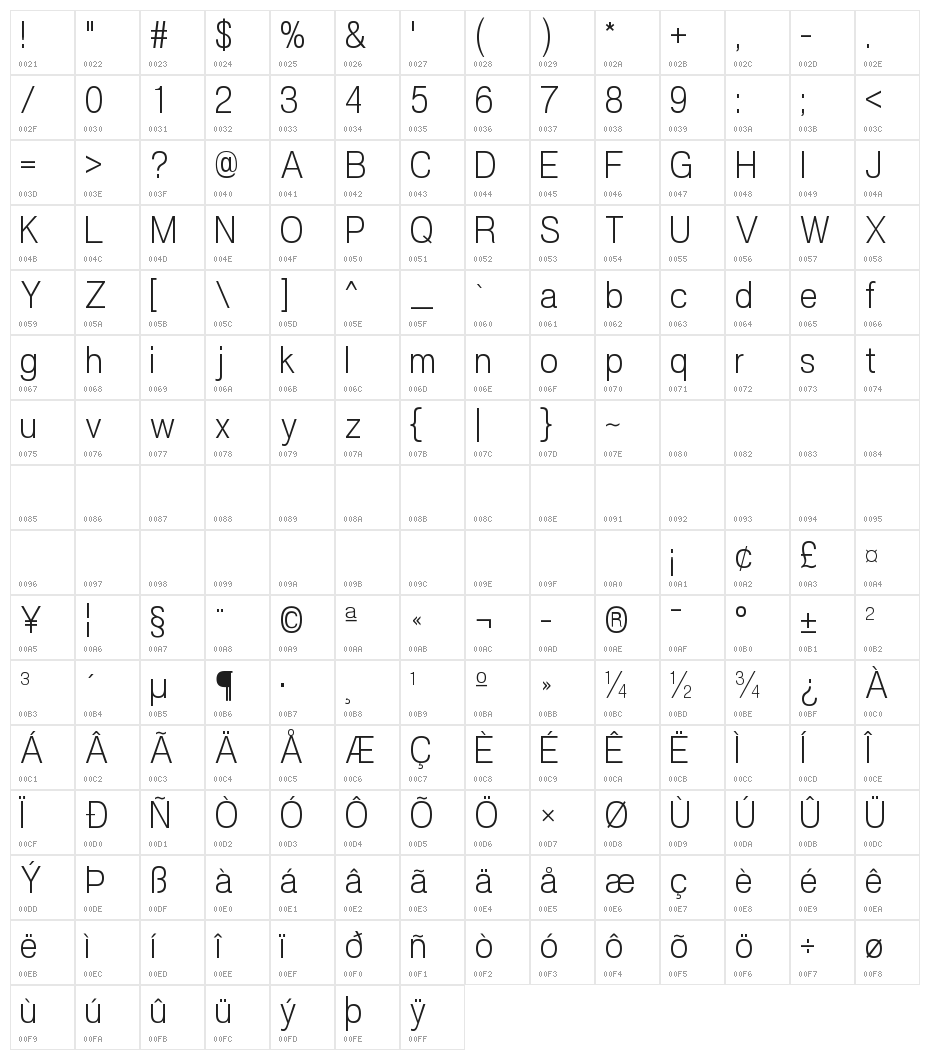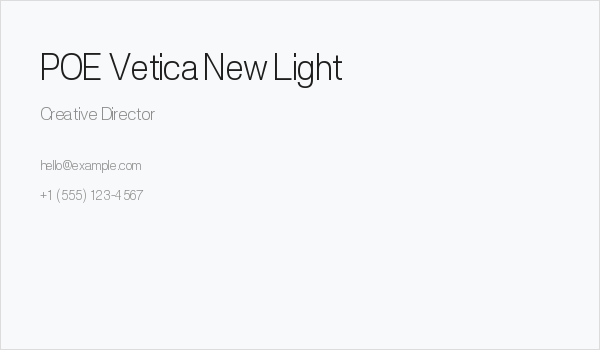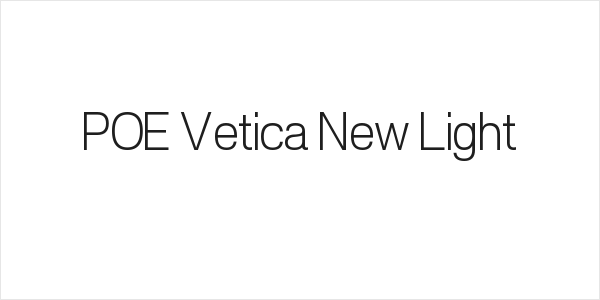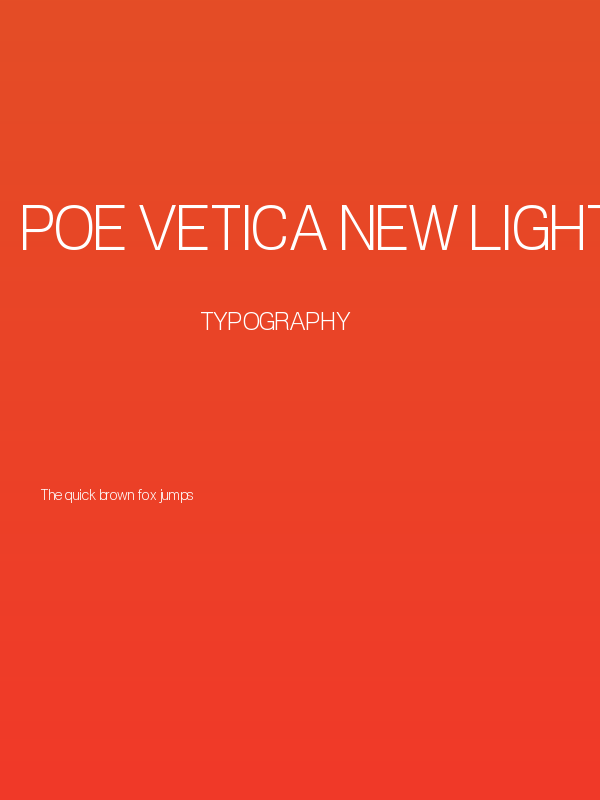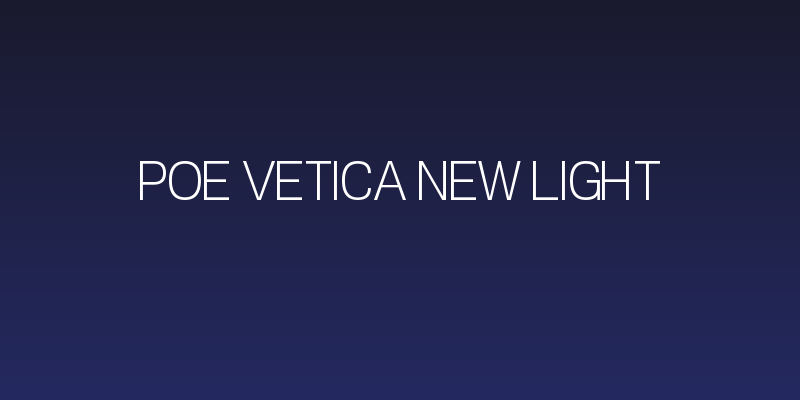
POE Vetica New Light Font
POE Vetica New Light Description
This font presents a clean and modern sans-serif style, characterized by its light weight and uniform stroke width. The characters are well-proportioned with a consistent height, offering a sleek and professional appearance. The uppercase letters are bold and commanding, while the lowercase letters maintain a friendly and approachable look. The numerals are clear and easy to read, making them suitable for a variety of applications. Special characters are included, providing versatility for different design needs. Overall, this font is ideal for projects that require a contemporary and minimalist aesthetic.